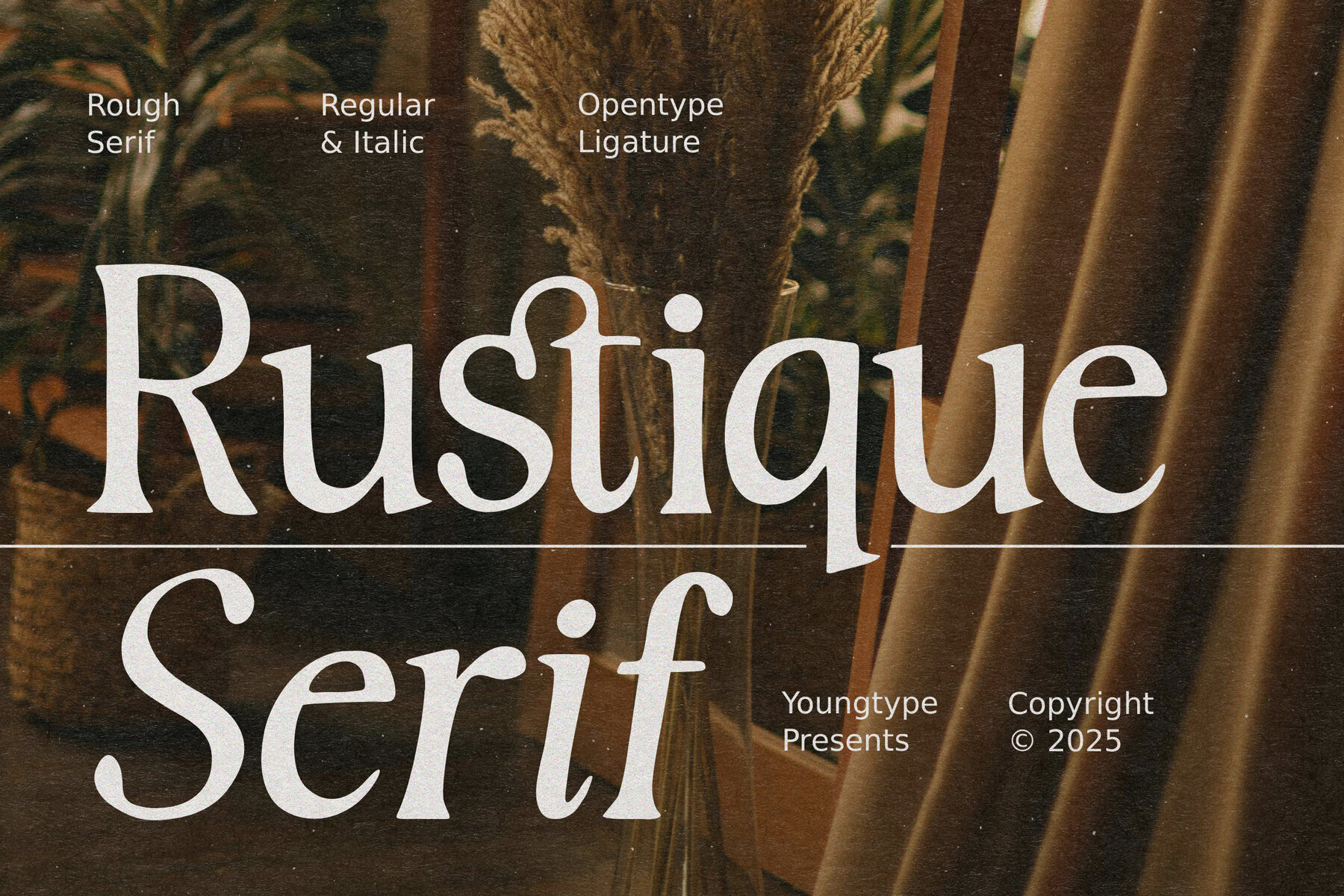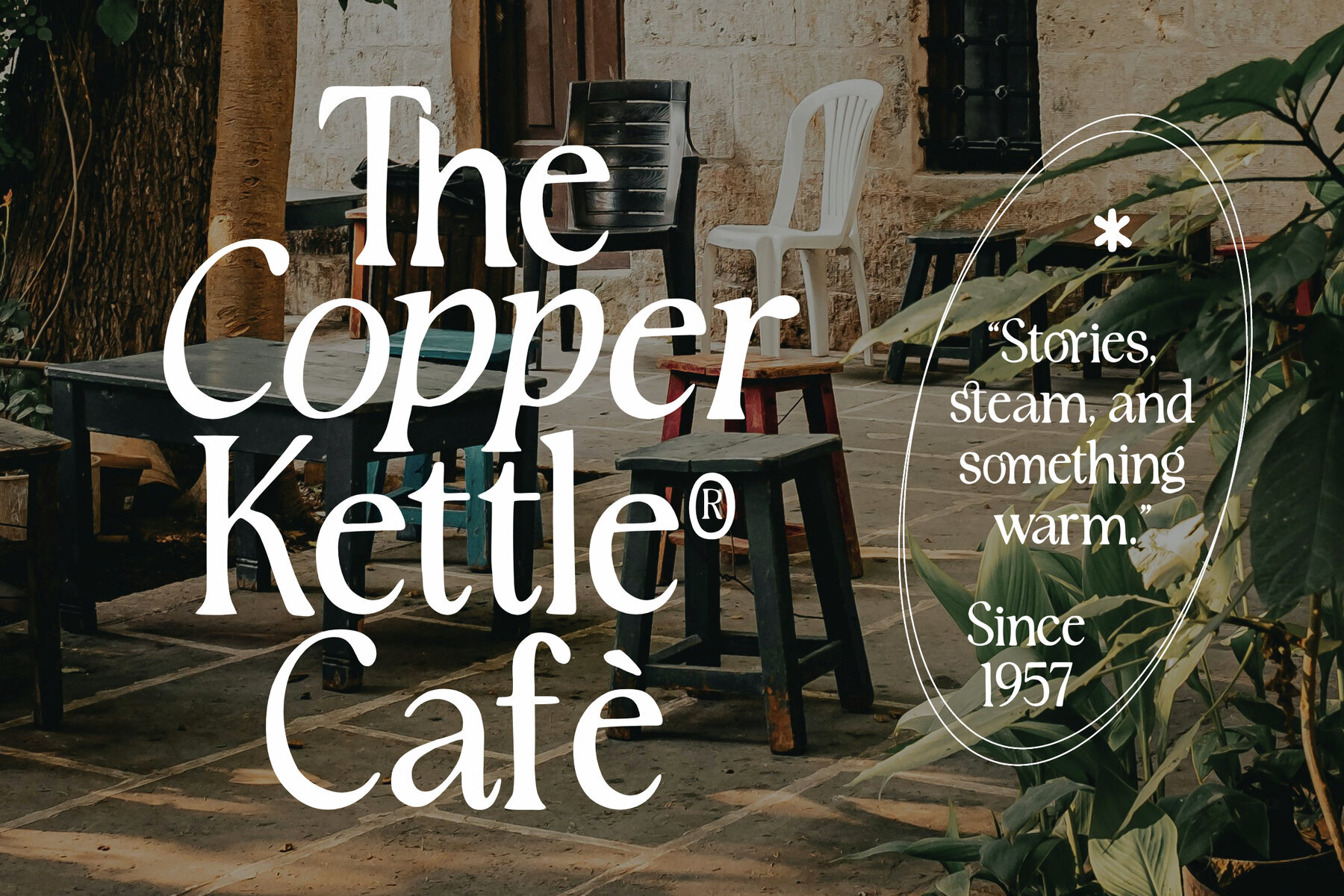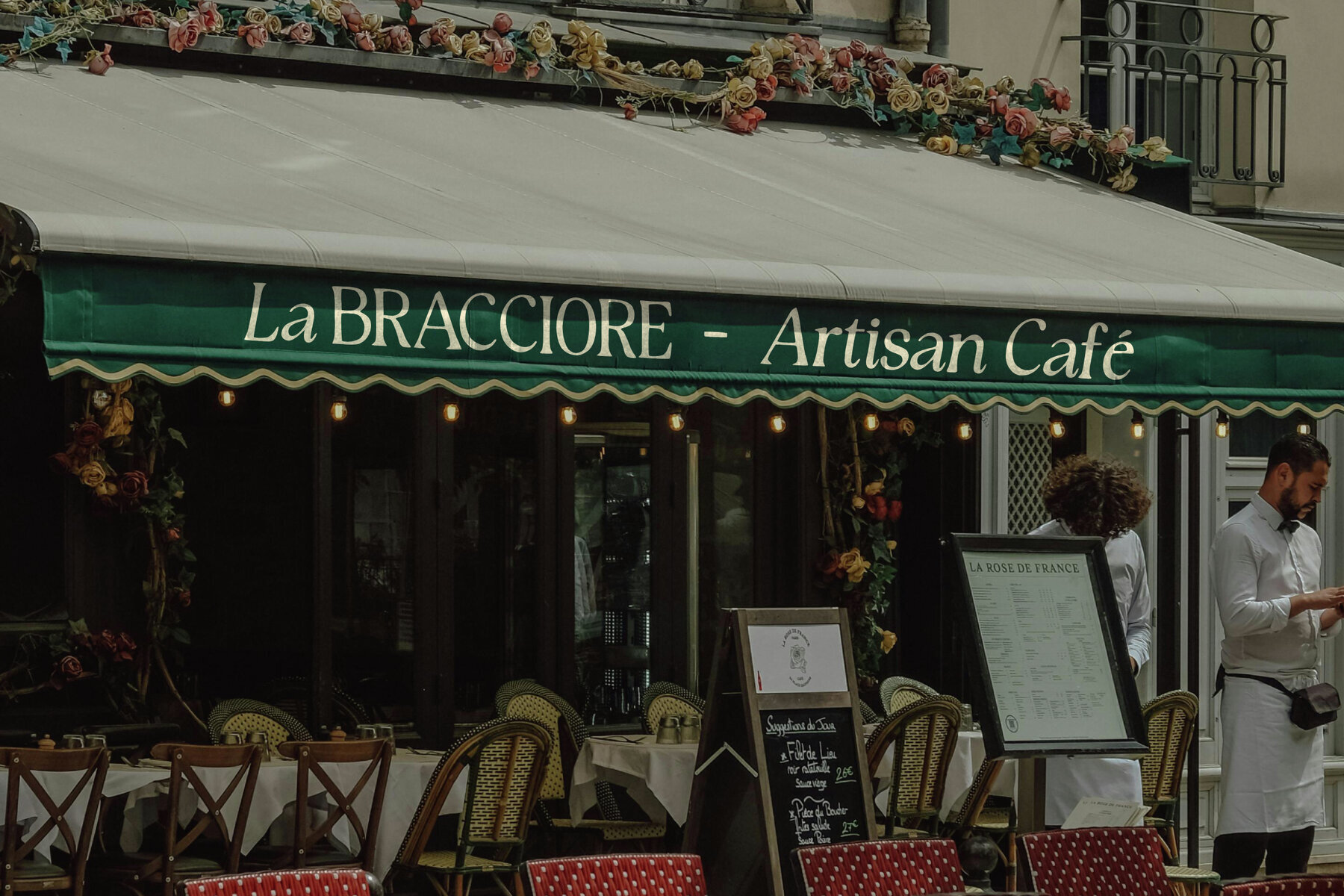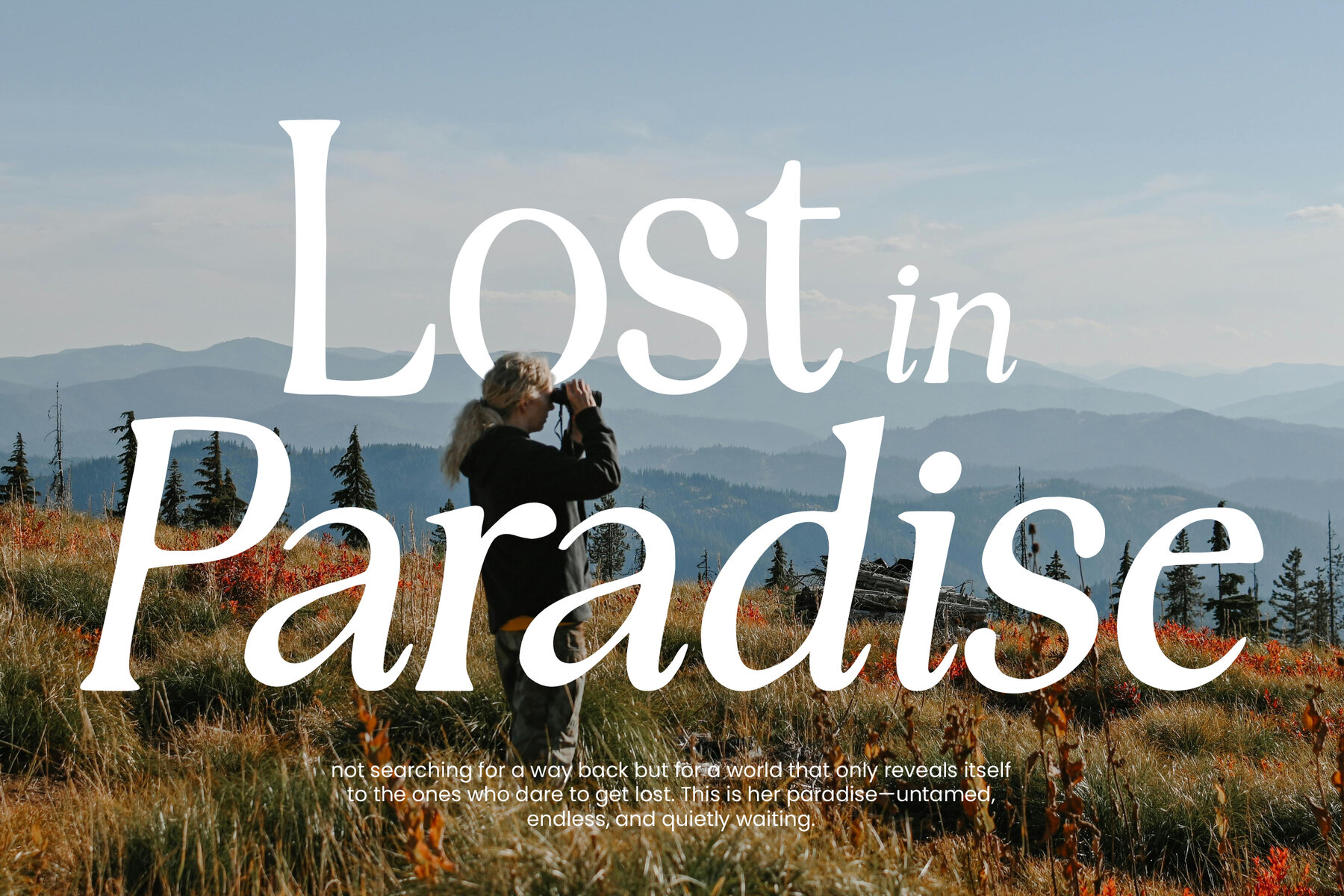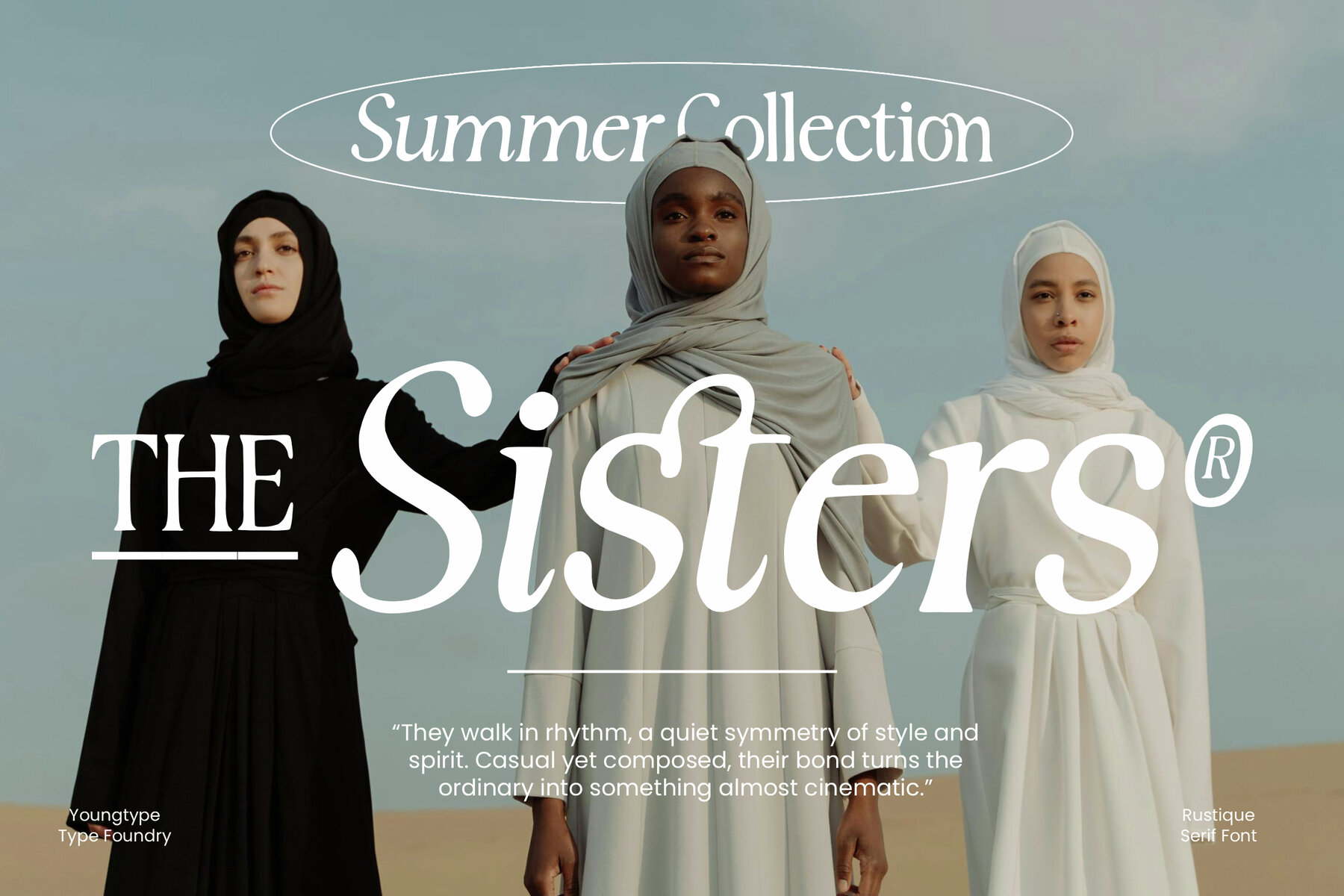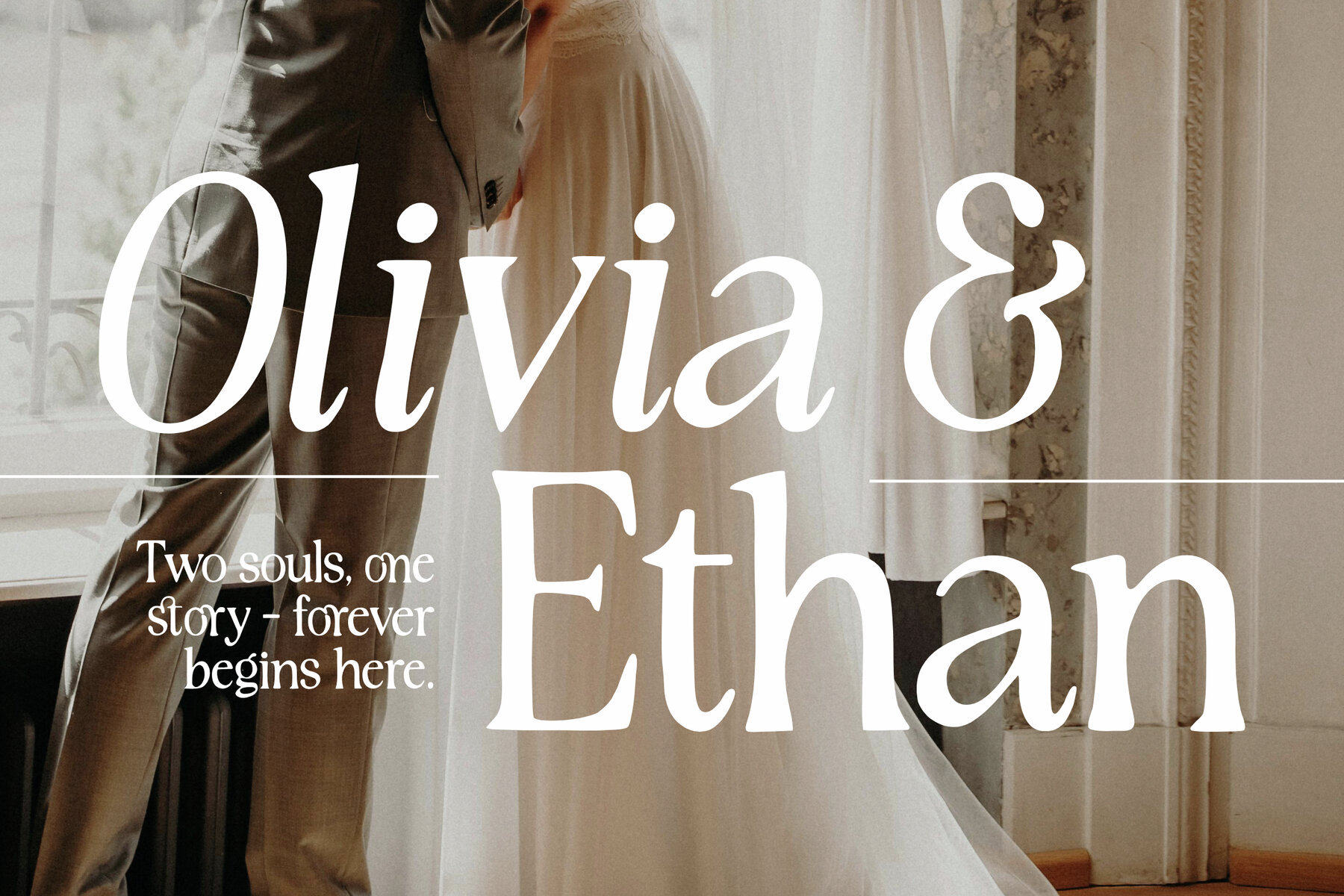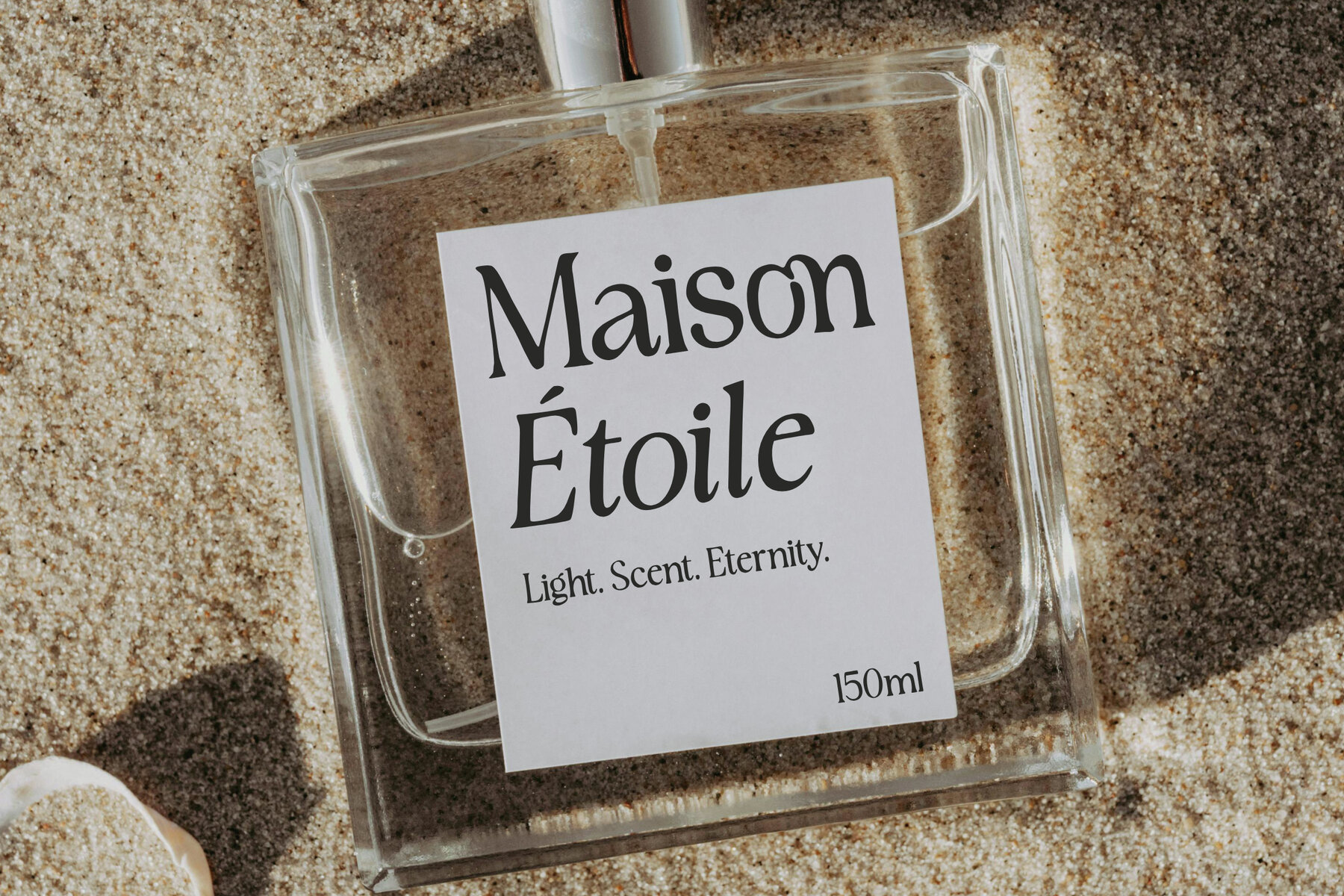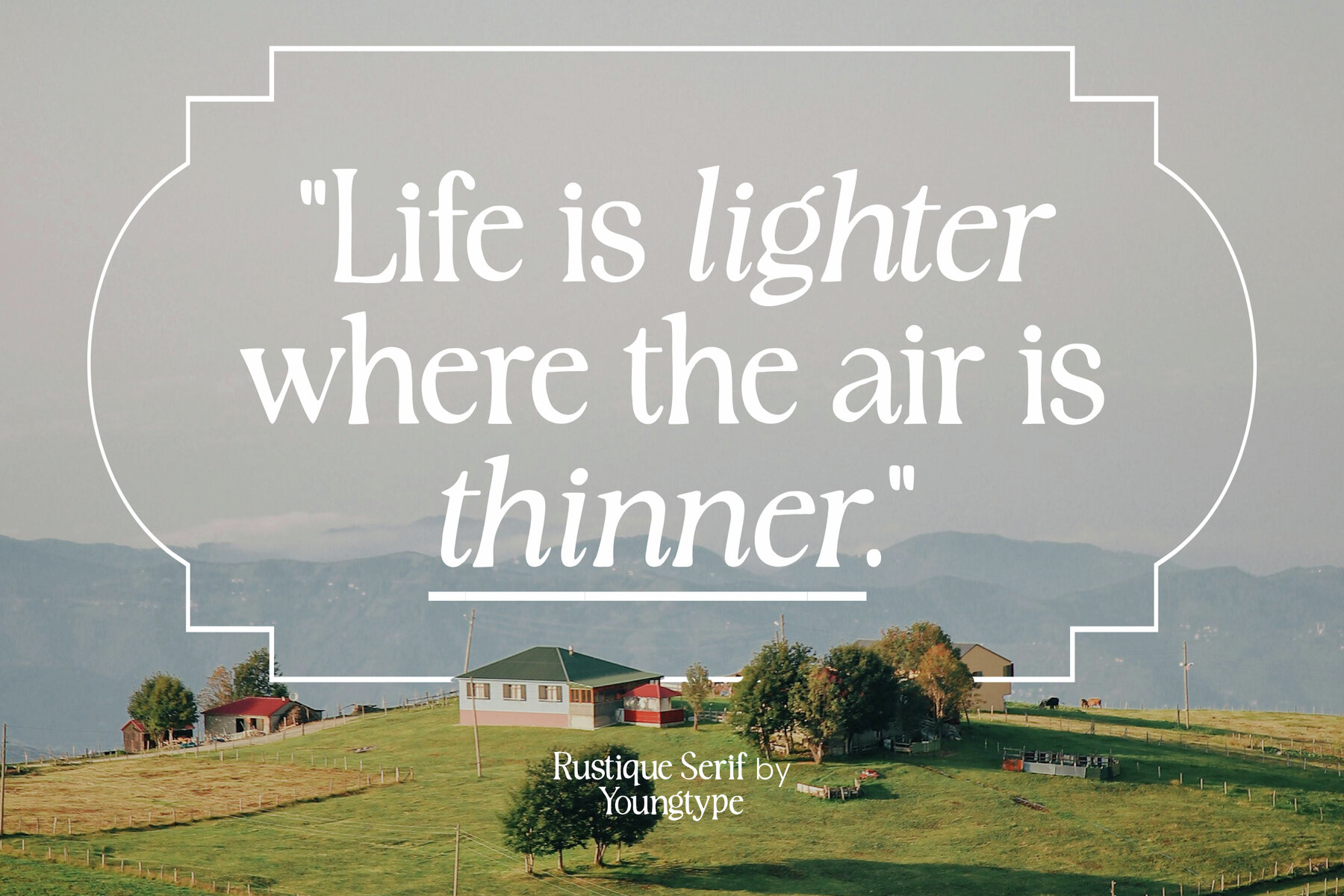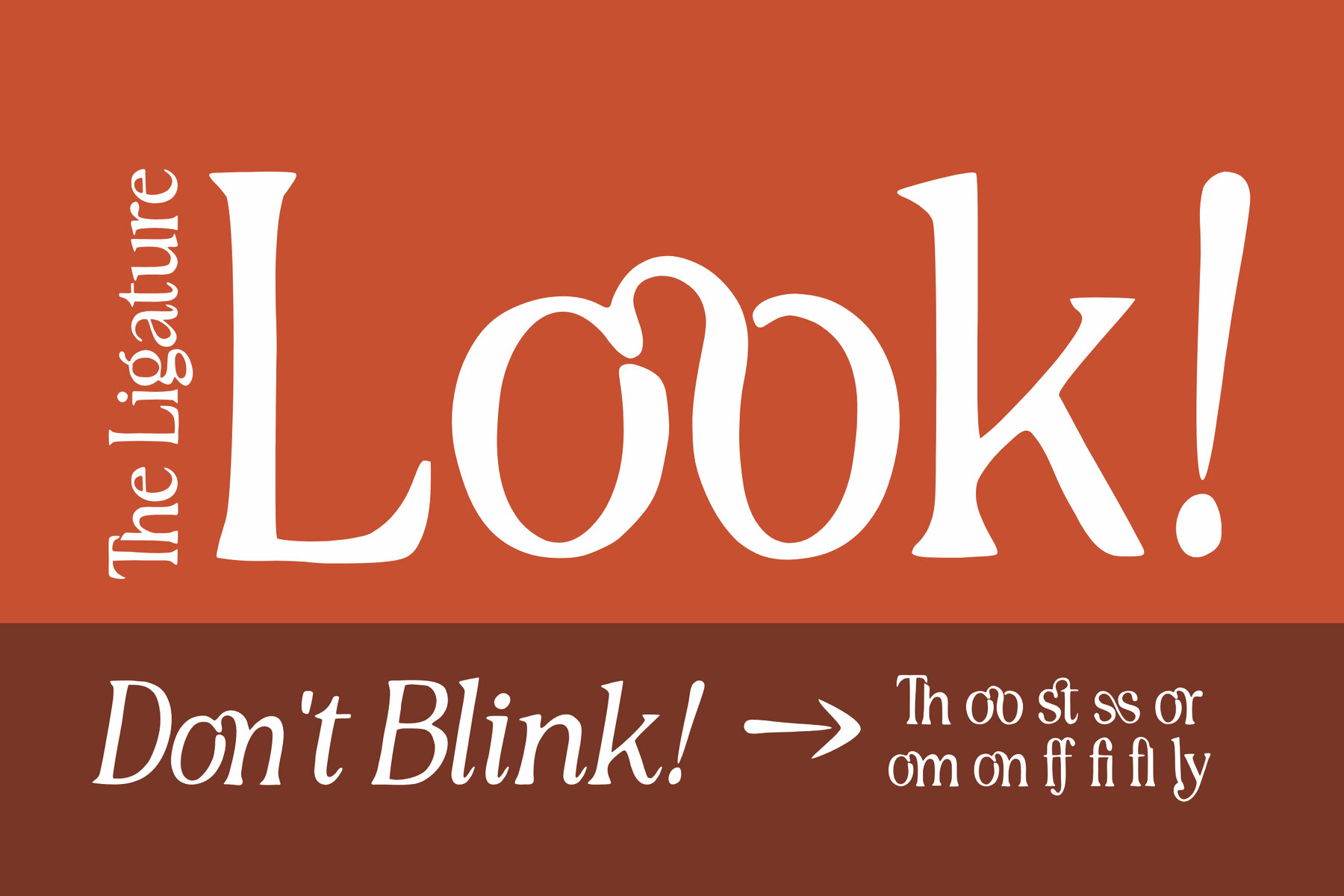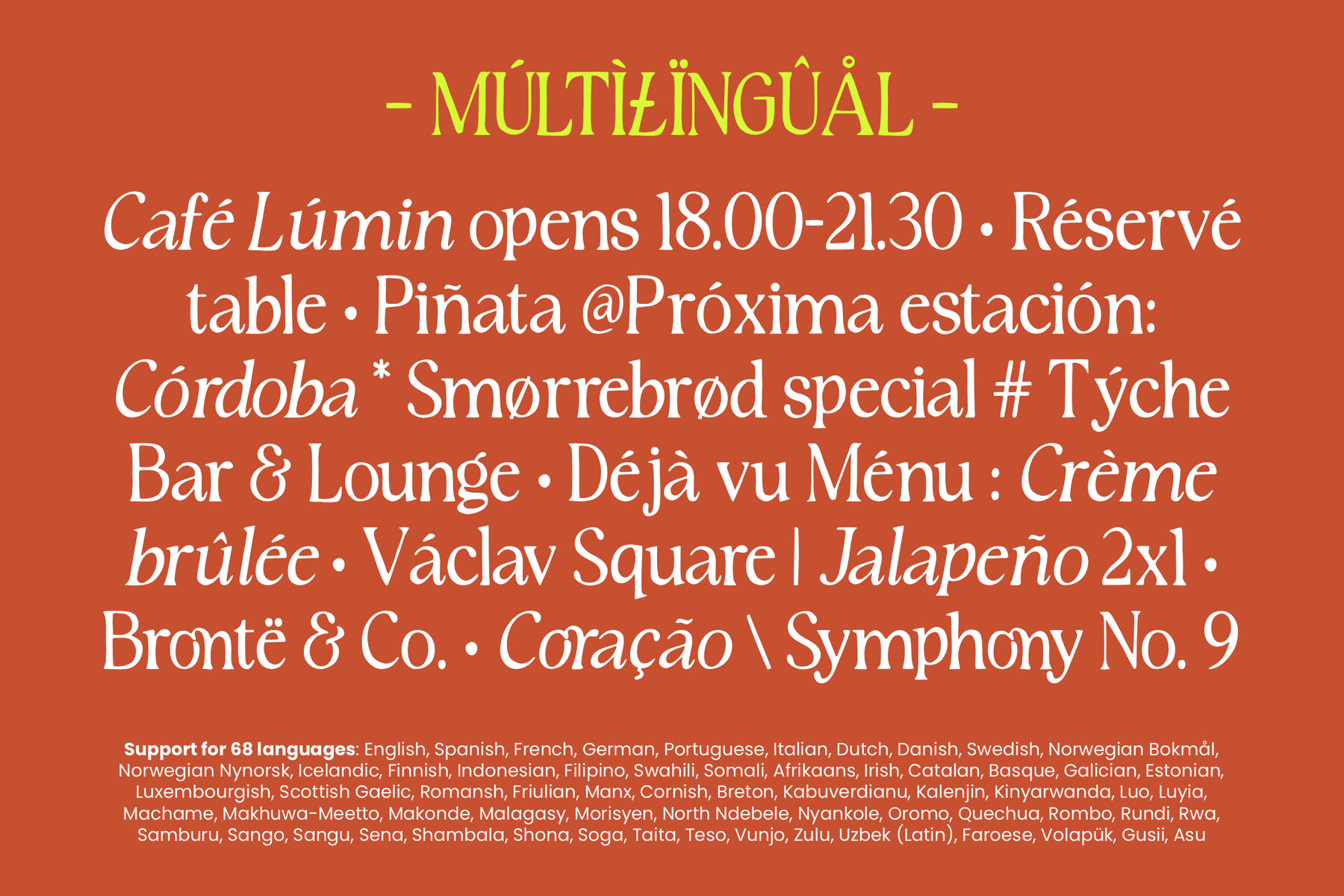
Rustique Serif Font
Rustique Serif is a refined typeface that seamlessly merges a rugged serif texture with elegant letterforms, ideal for a timeless rustic aesthetic. Available in regular and italic styles, this typeface offers flexibility across a range of design projects. Its opentype ligatures lend a distinctive artistic touch, while its handcrafted feel infuses warmth and character, making it perfect for branding, editorial layouts, packaging, or any creative venture requiring sophistication and vintage allure.Rustique Serif: A Blend of Vintage Charm and Modern Sophistication